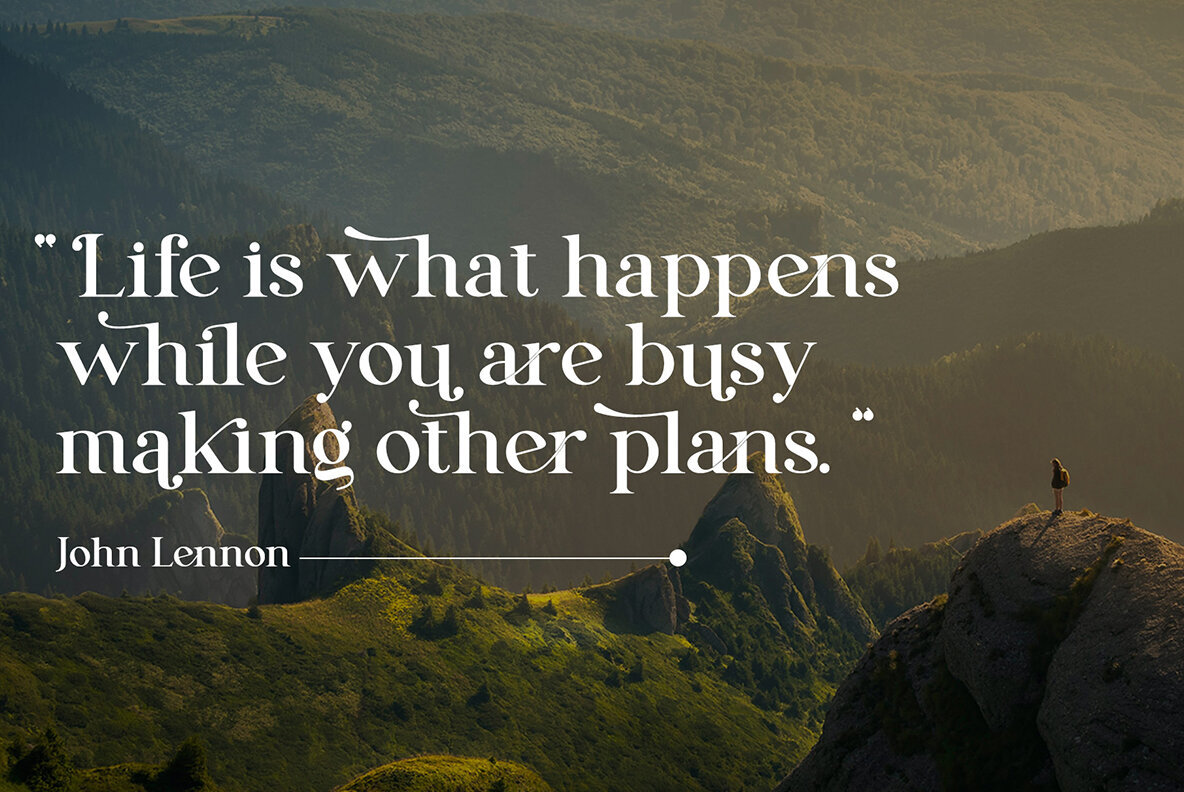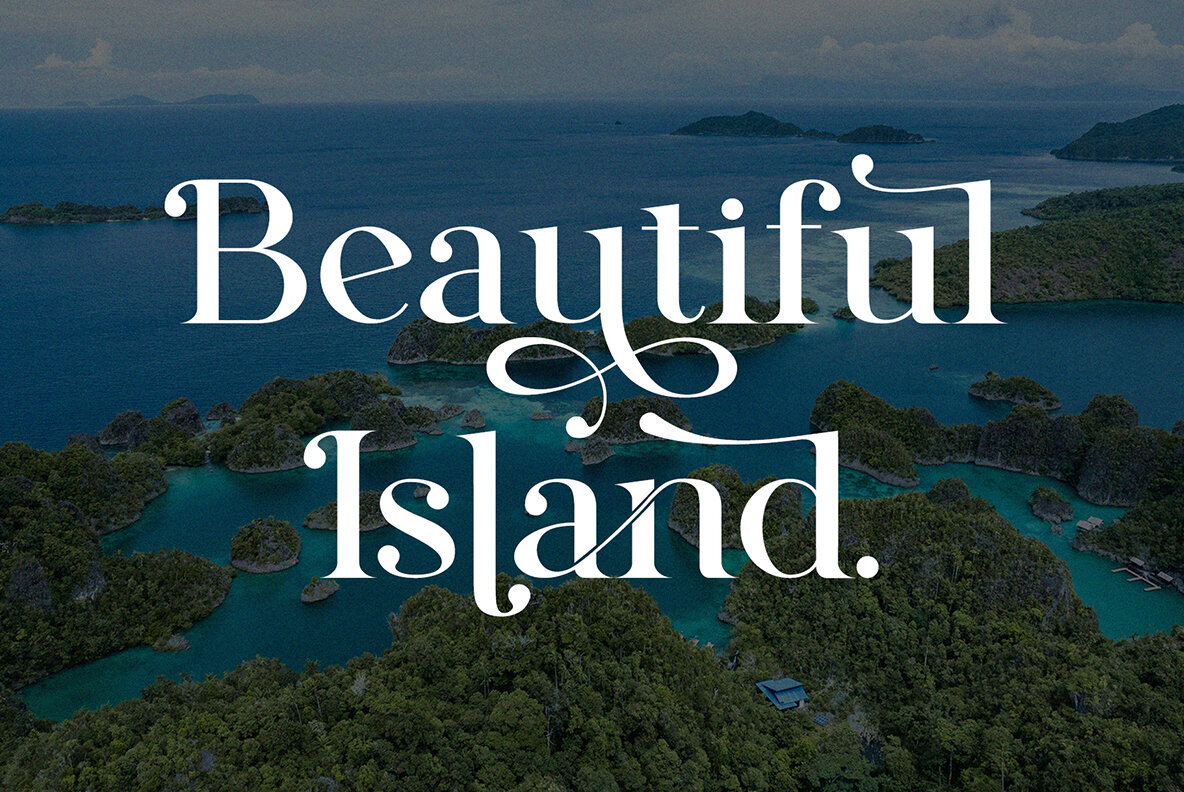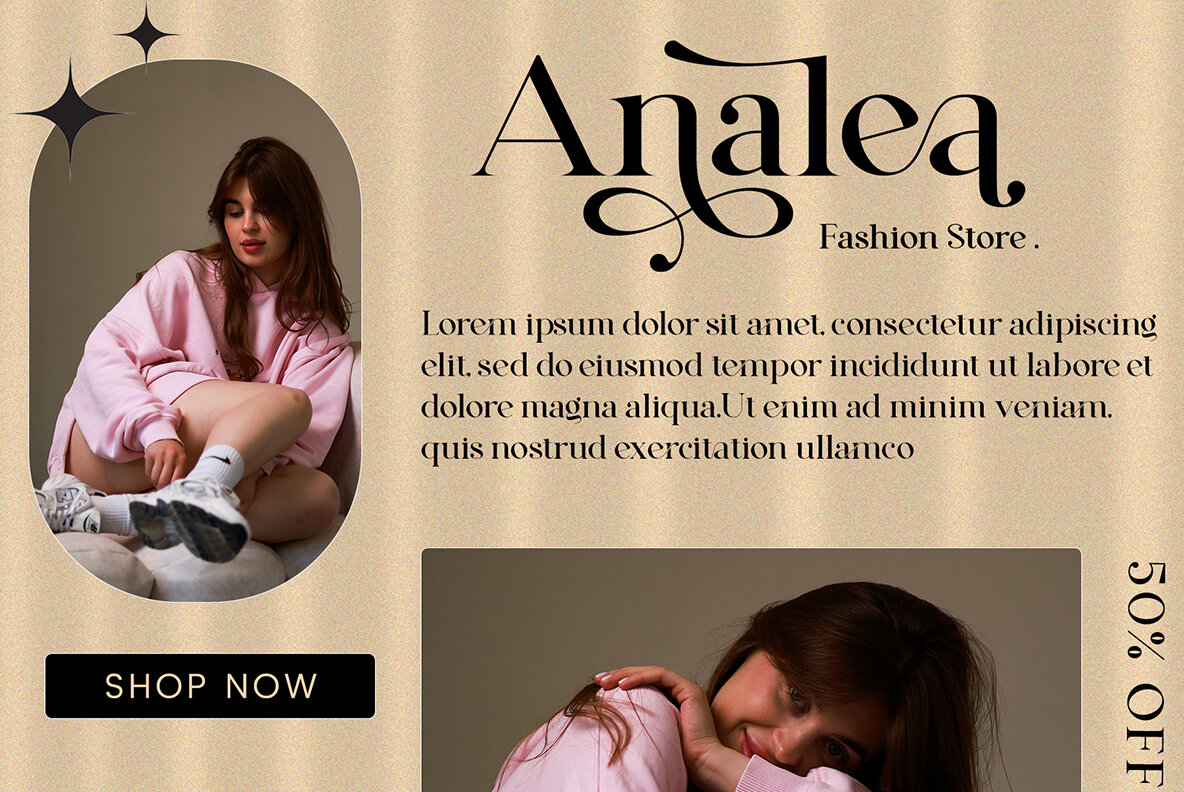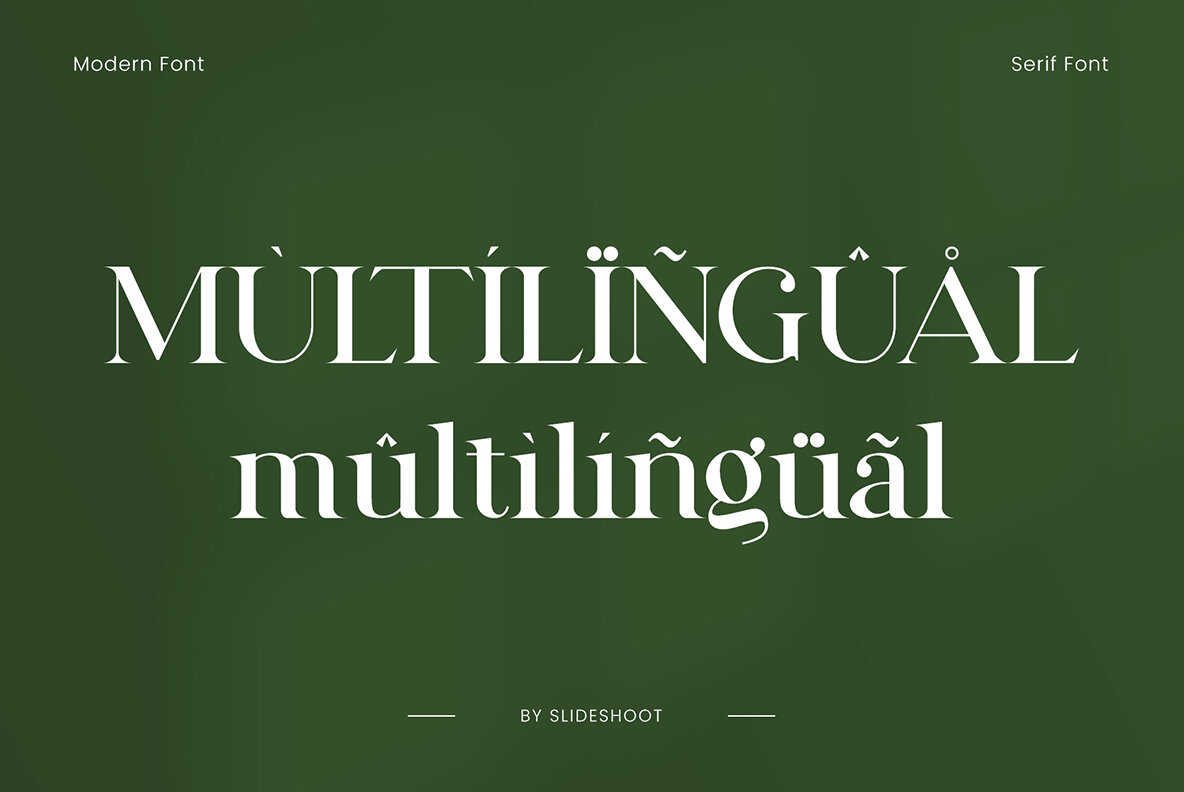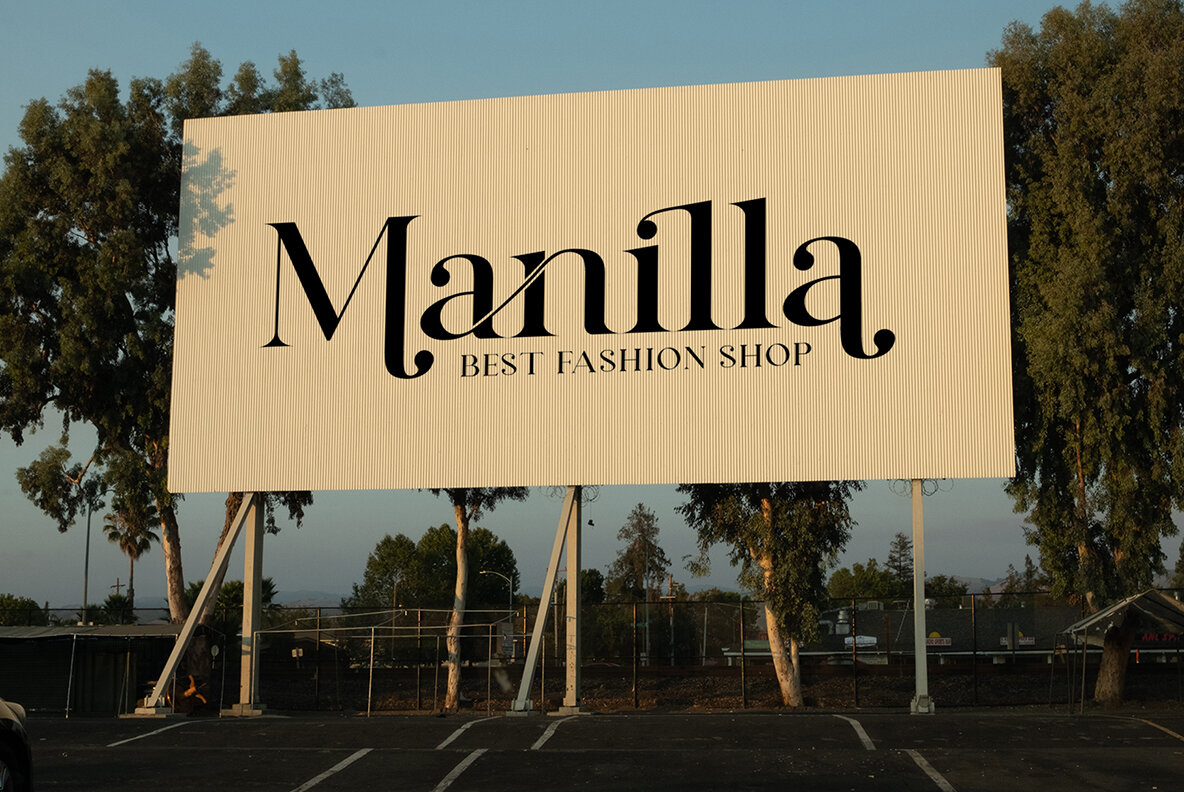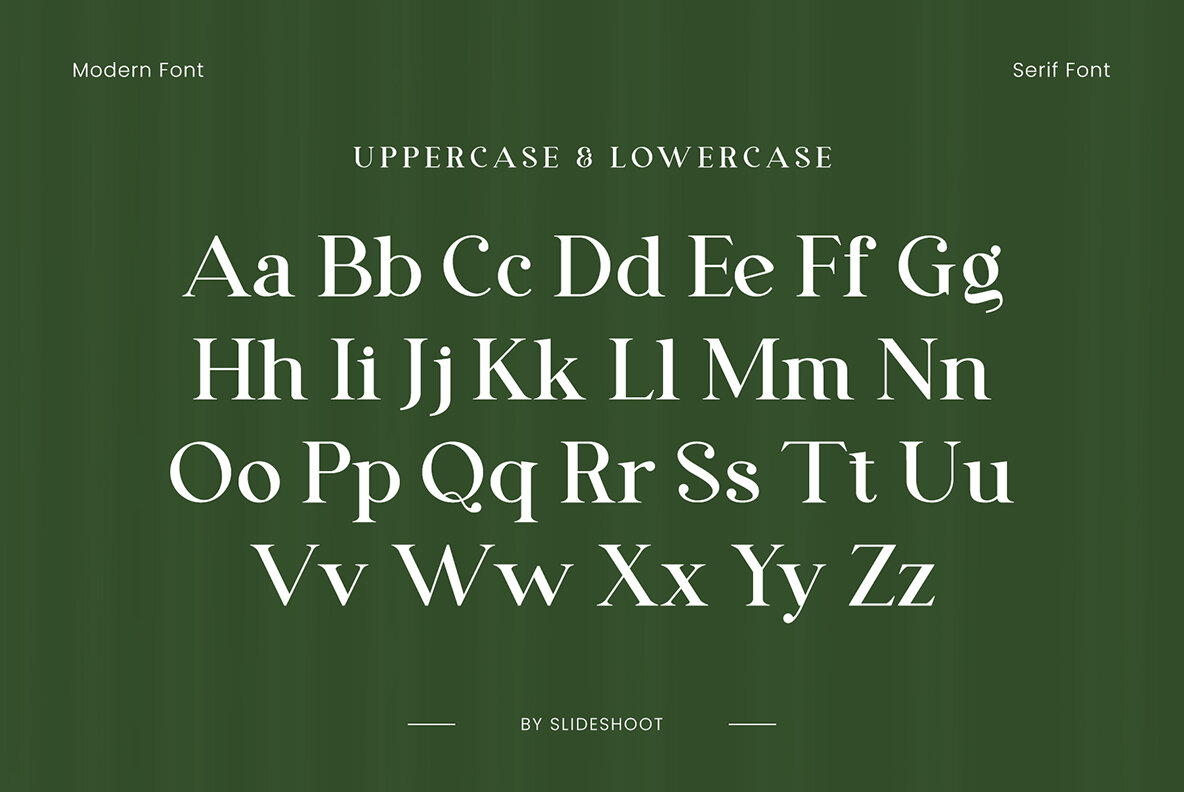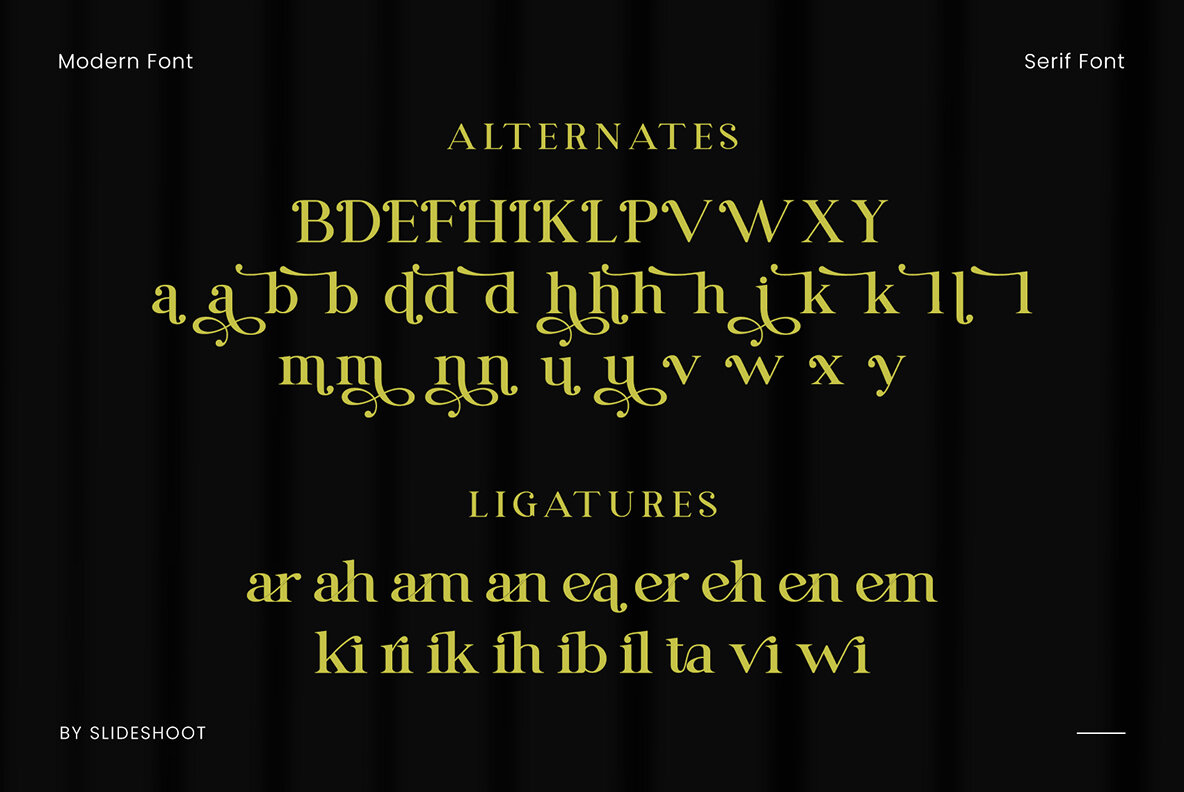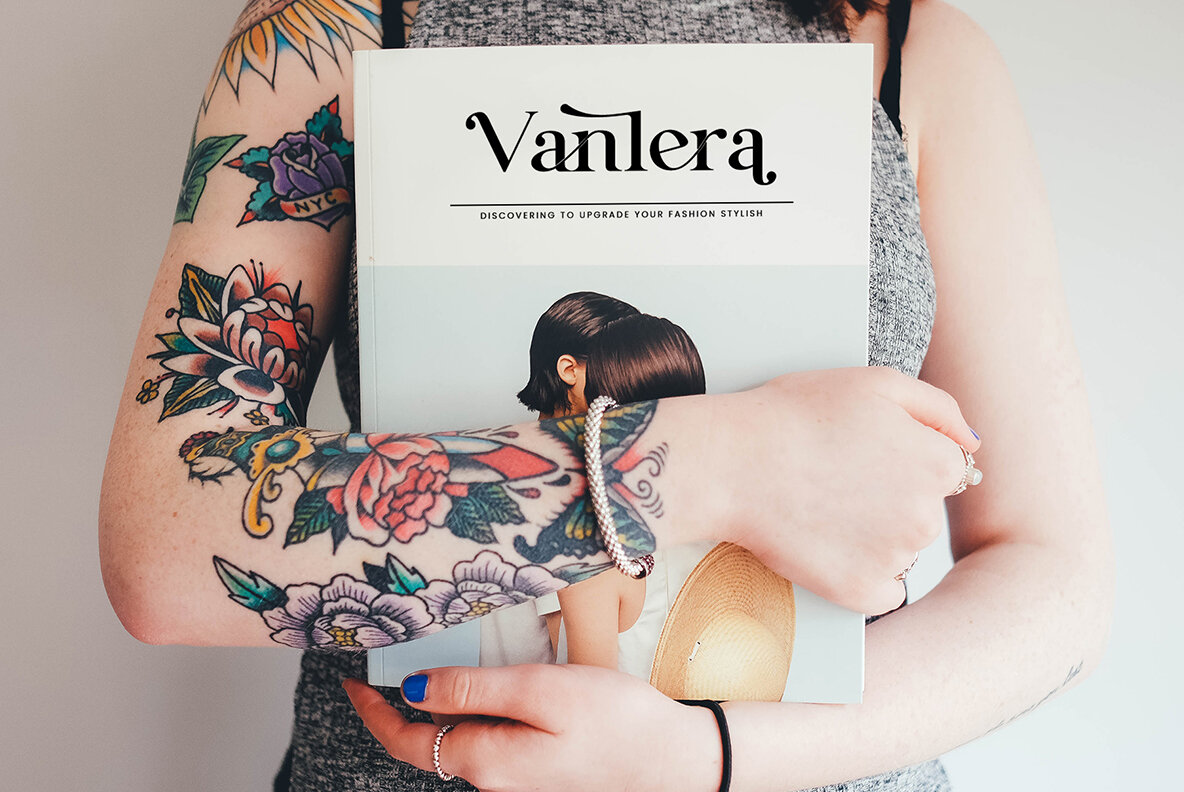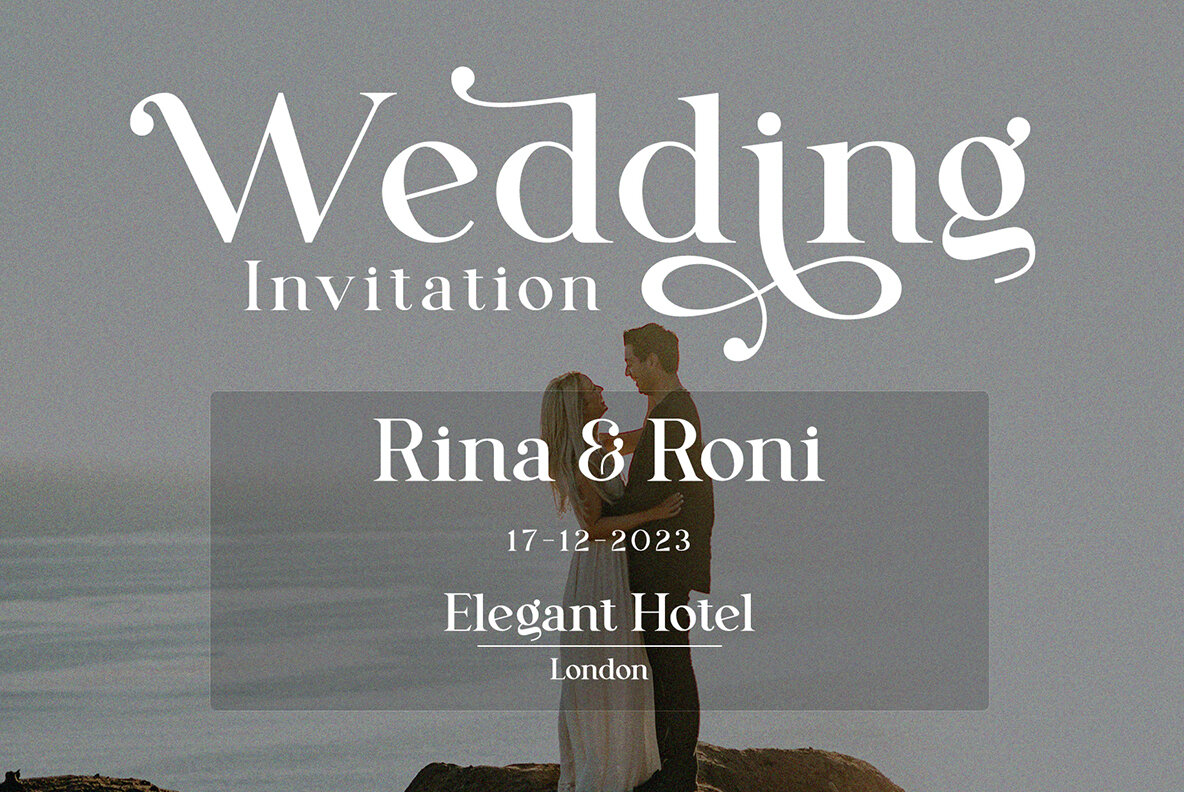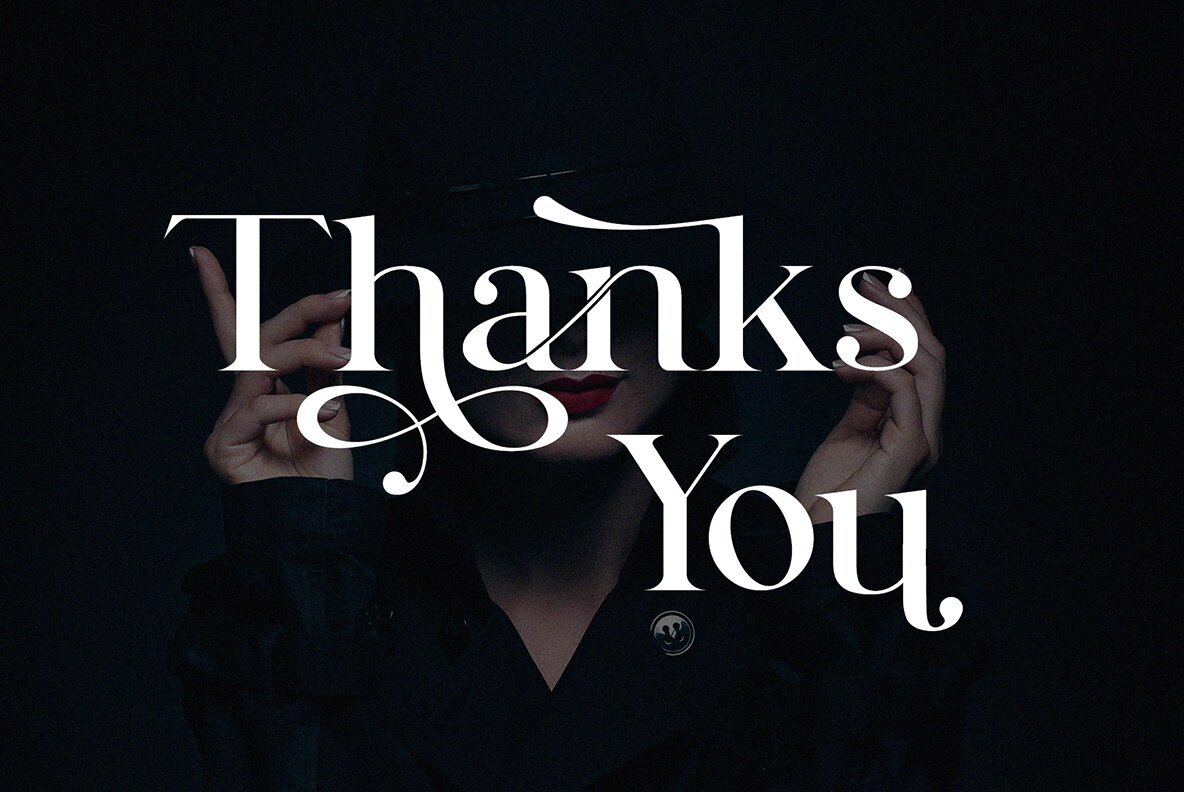
Denalea Font
Denalea Regular
Denalea Serif is a balanced, smooth, and stylish serif font with a beautiful character. Its elegant design fits perfectly with invitation card designs, company logos, movie titles, business cards, book titles, brand names, and various other projects. Denalea Serif exudes sophistication and features stylish alternations and ligatures, making it the ideal partner for any creative endeavor.Denalea Serif: Stylish and Elegant Design Choice